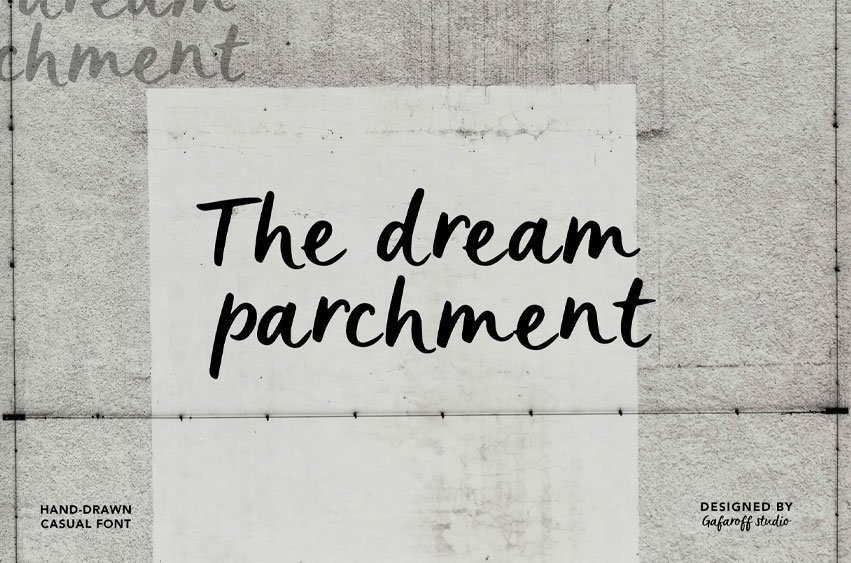
Dream Parchment Font is a soft hand-drawn casual font inspired by quick pencil notes and dreamy journal pages.
Dream Parchment is a natural handwritten font that feels like quick notes written on paper – imperfect, warm and personal.
The letters keep a relaxed rhythm, just like real handwriting – not too clean, not messy, comfortably human.